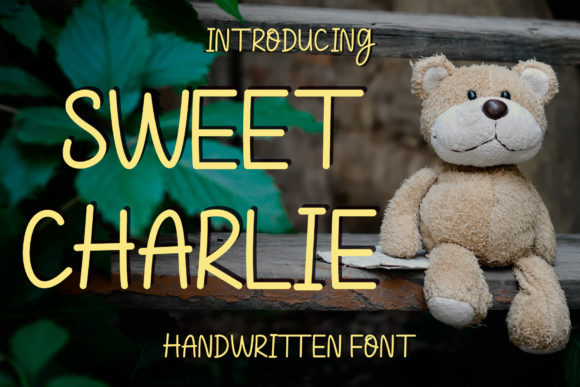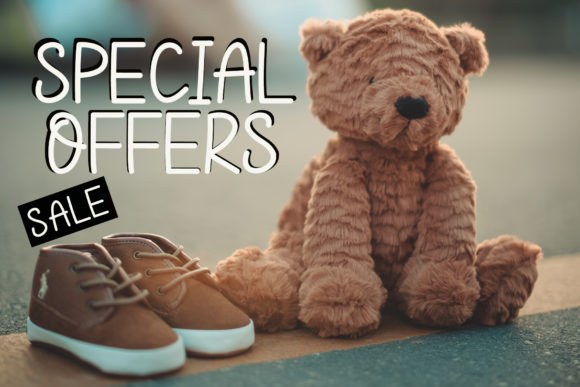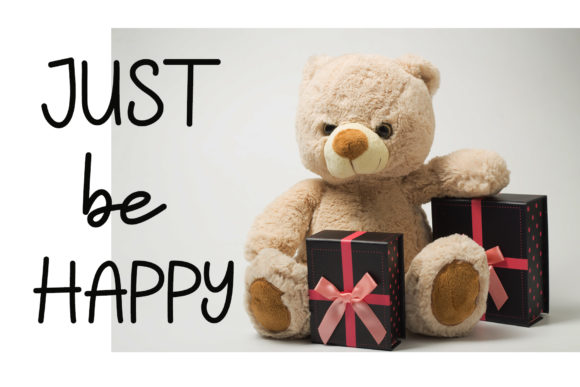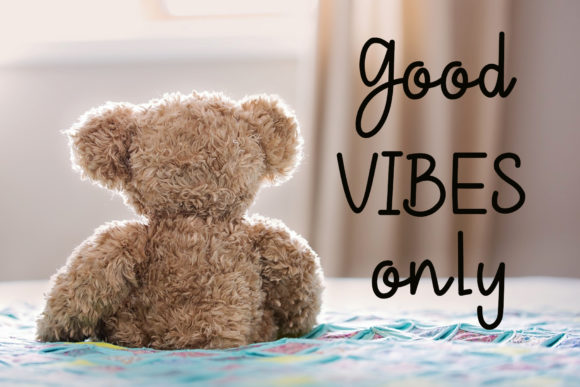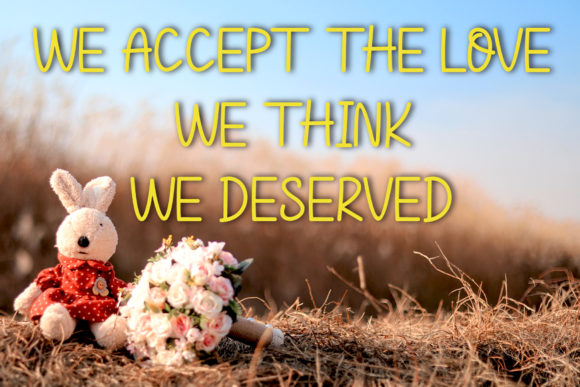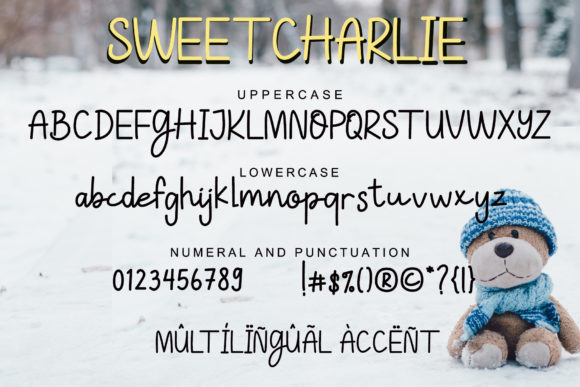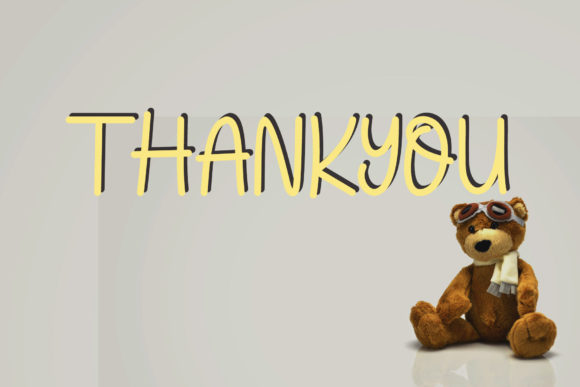
Sweet Charlie Font
About Sweet Charlie Font
Sweet Charlie is a fun, quirky and authentic font that will easily embody any romantic craft idea. It will turn any creative idea into a true standout.